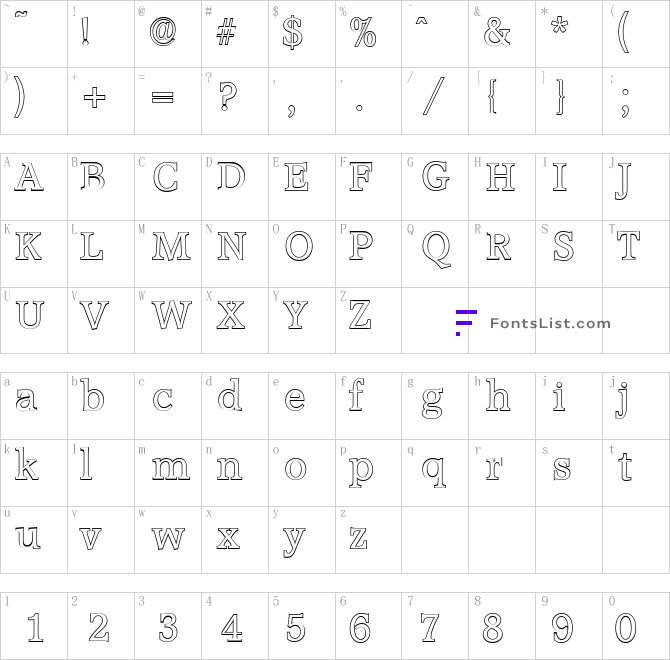
AccoladeOutline-Regular.ttf is a very beautiful artistic font, AccoladeOutline-Regular.ttf is widely used in the design and printing of various books and pictures,AccoladeOutline-Regular.ttf has a strong visual impact,AccoladeOutline-Regular.ttf is a commonly used font in newspapers, magazines and books, and is used in posters, e-commerce Poster design, store design, logo design, font design and other fields.AccoladeOutline-Regular.